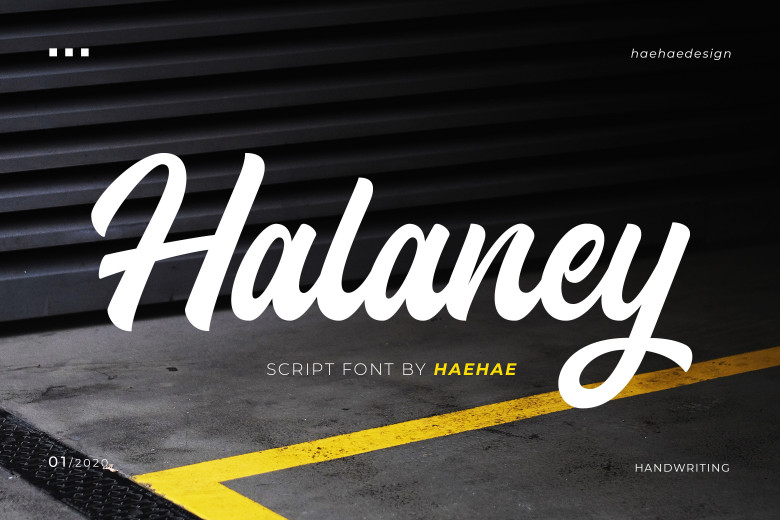
Halaney Font
Halaney features an attractive handwritten font. This versatile typeface can be used in many creative and business projects, including t-shirt designs, logos, embroidery projects and craft designs – in addition to publications like posters, banners or magazines, invitations or books.
Halaney Handwritten Script Font